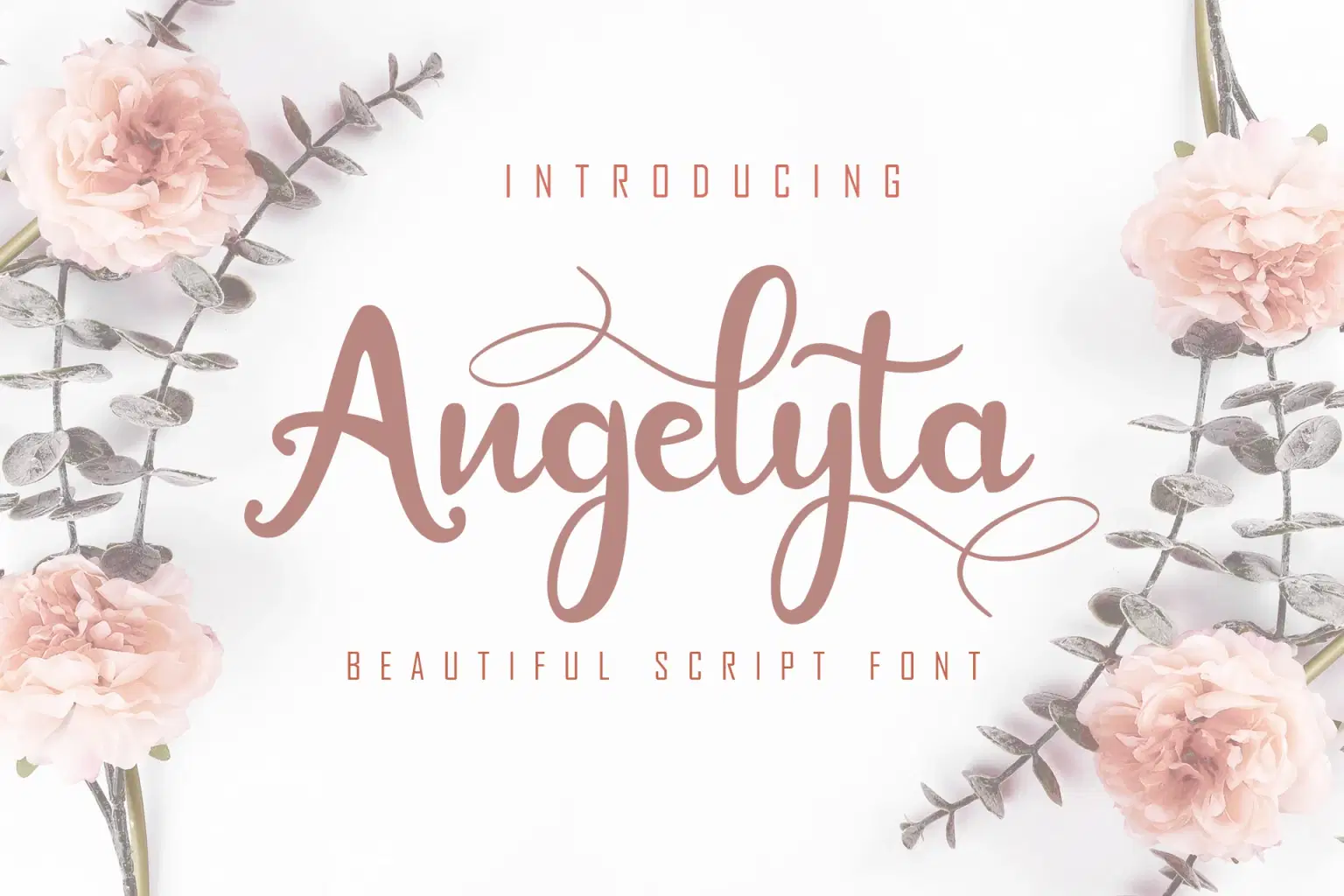
Angelyta is a beautiful and elegant script font with soft curves and graceful swashes that create a romantic and feminine look. This font is perfect for wedding designs, invitations, branding, logos, quotes, social media posts, and any creative project that needs a delicate and charming handwritten style.